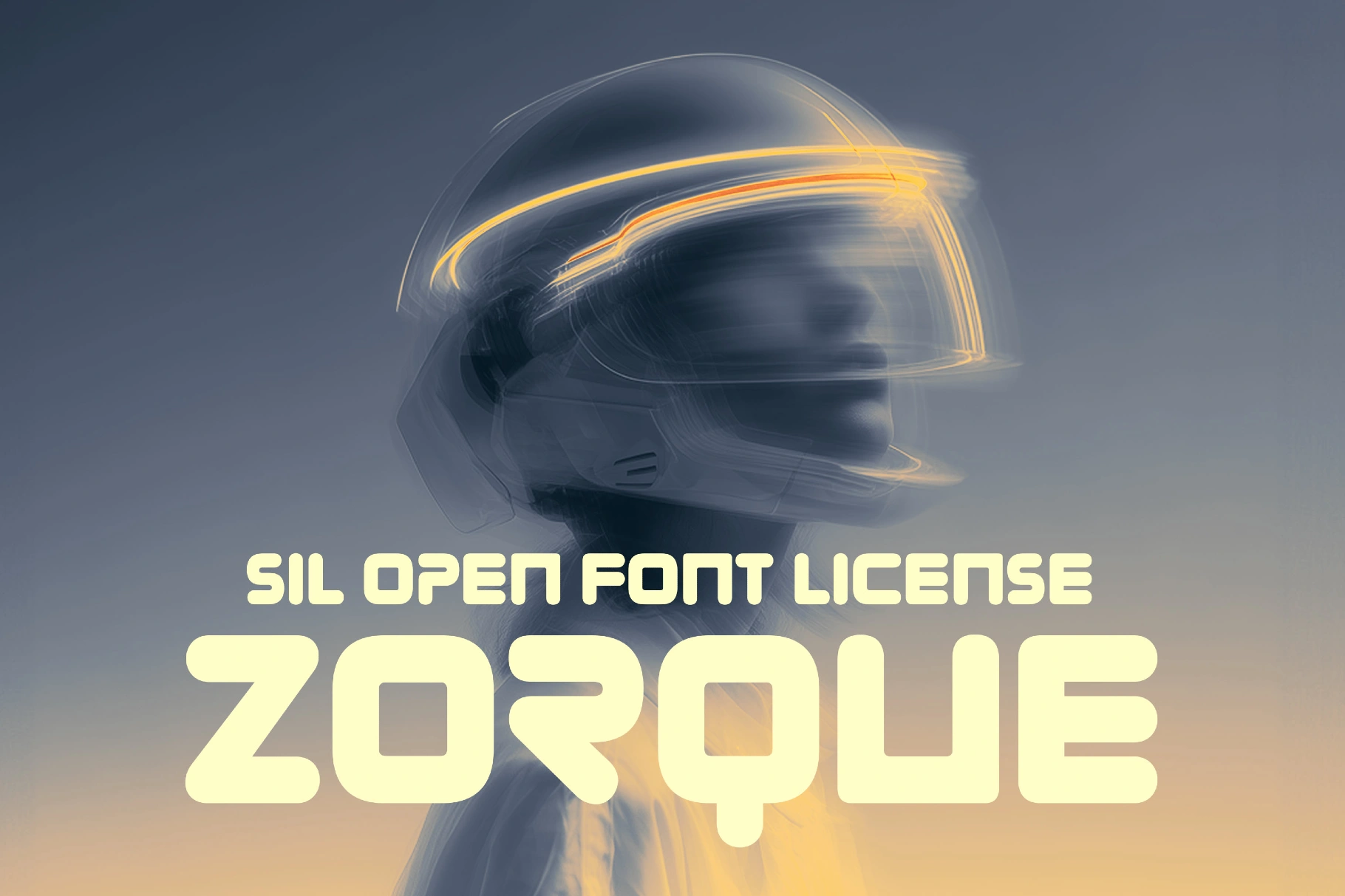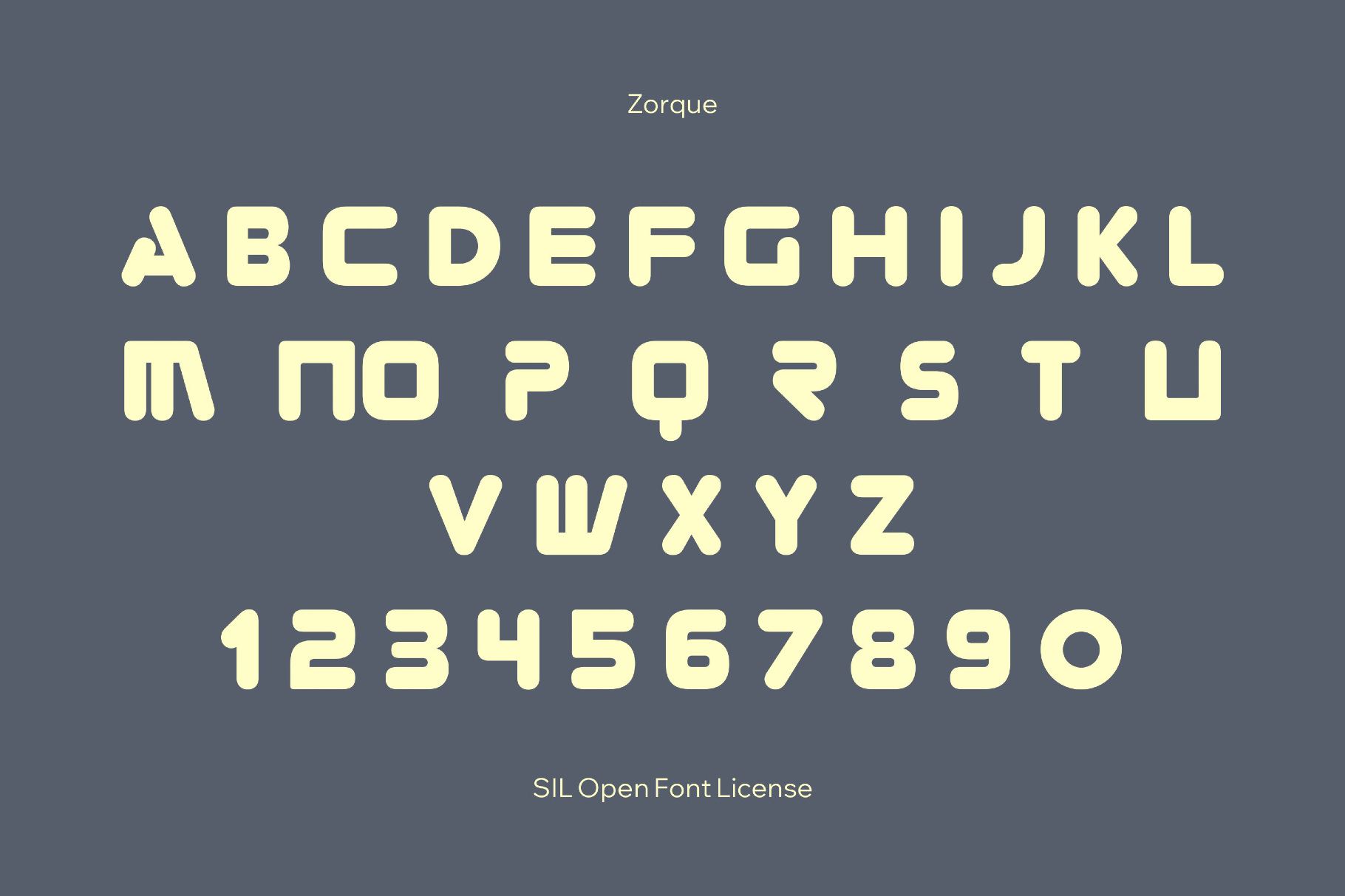
Zorque Retro Font
Zorque is a wide, sci-fi all-caps font with rounded corners and segmented cuts that evoke space-opera logos, classic arcade marquees, and comic book covers. It’s well-suited to retro-futurist branding, superhero poster headlines, game titles, esports identities, team wordmarks, product packaging, manga sound effects, and punchy motion graphics.
• Only uppercase letters.
• Numbers, punctuation, and symbols.
• International characters with multilingual support across extended Latin scripts.
• Basic and extended mathematical symbols.